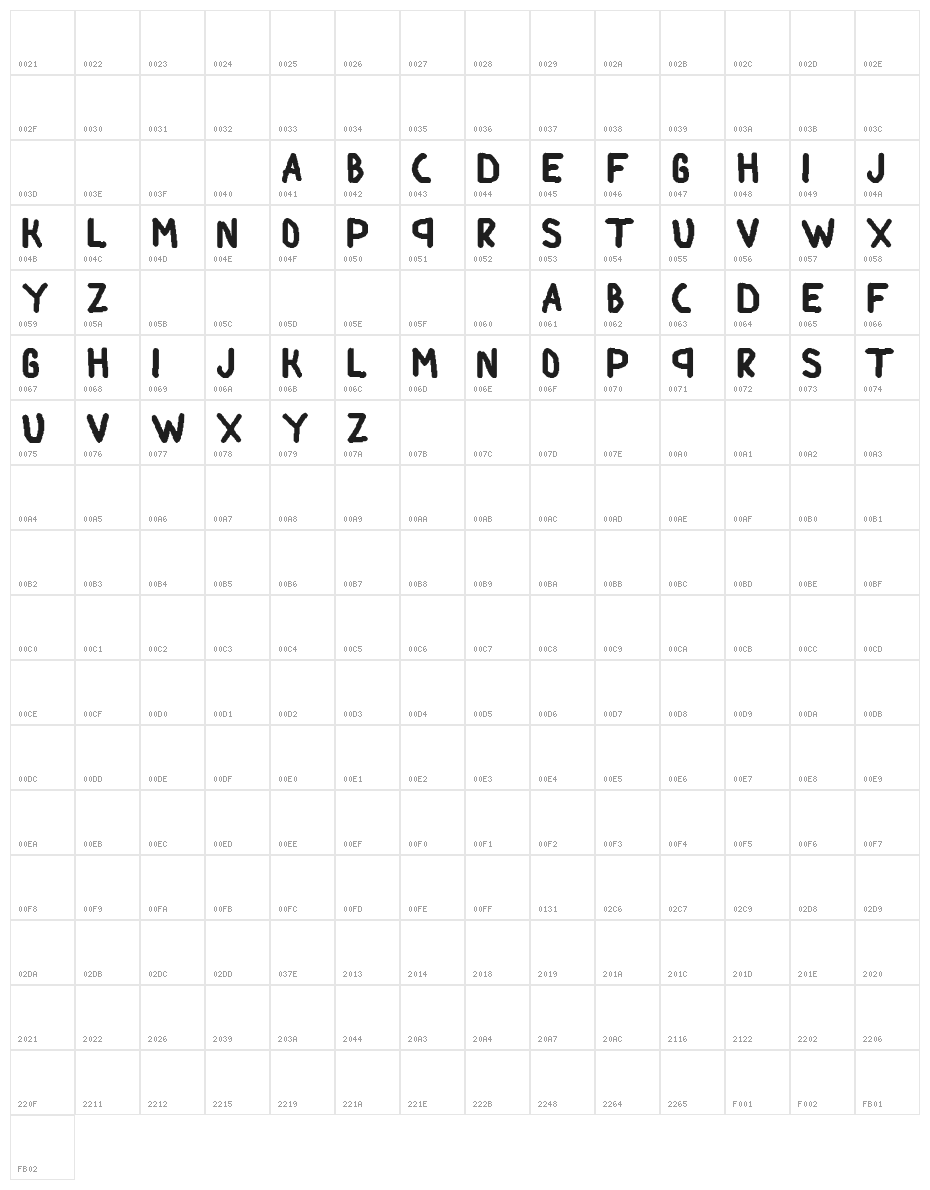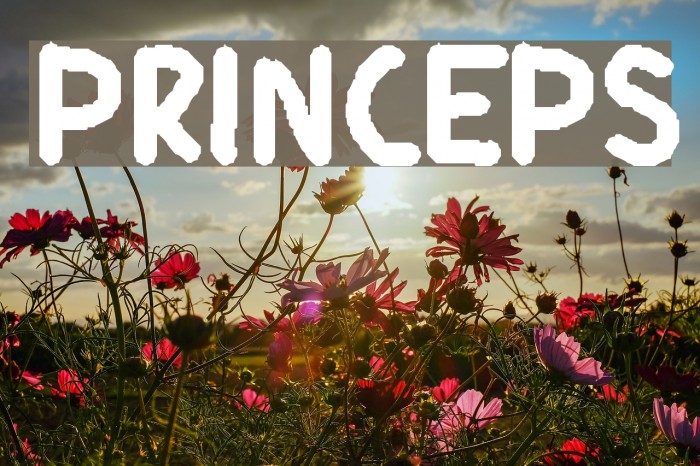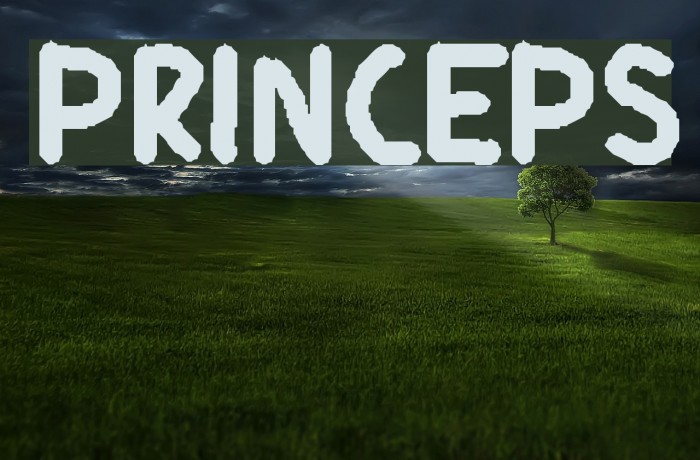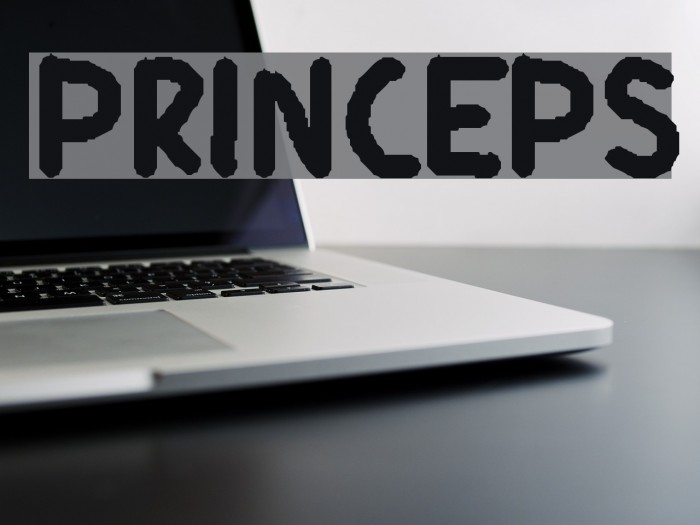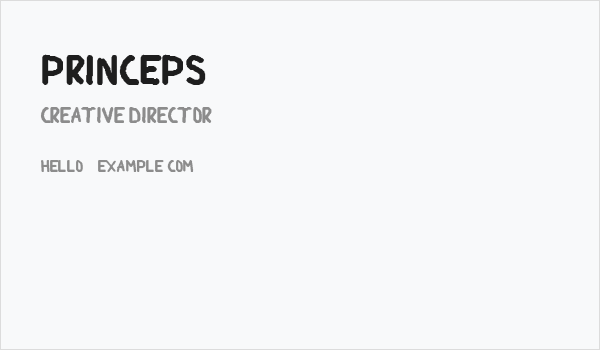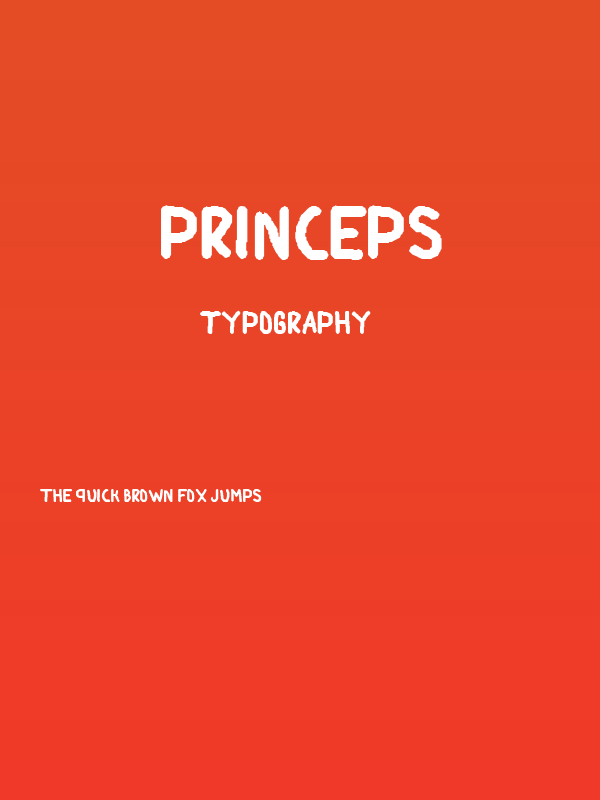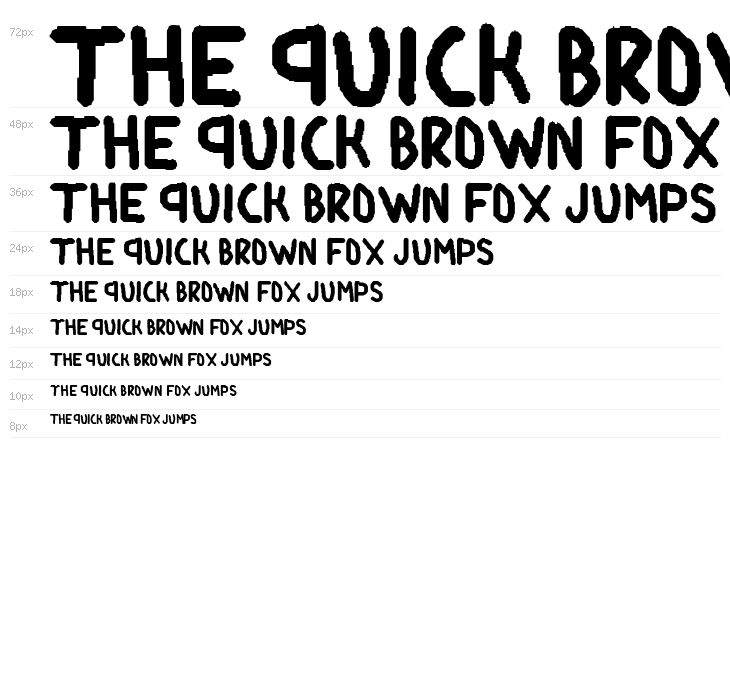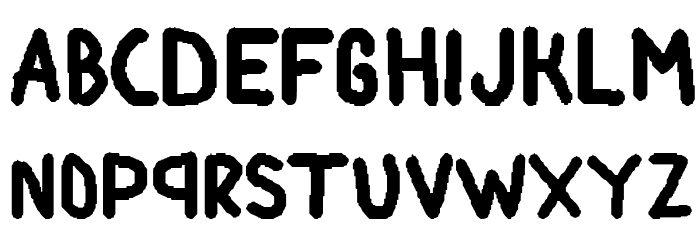
Princeps Font
Princeps Description
A bold, hand-drawn sans-serif font with rounded edges and a playful, informal appearance. The strokes are consistent in thickness, and the characters have a slightly irregular, organic feel, giving it a casual and approachable look.
| Overall Style | Playful, Informal, Hand-drawn |
| Use Case | Headlines, Posters, Children's materials, Informal branding |
| Proposed Projects | Children's books, posters, greeting cards, informal branding, educational materials. |